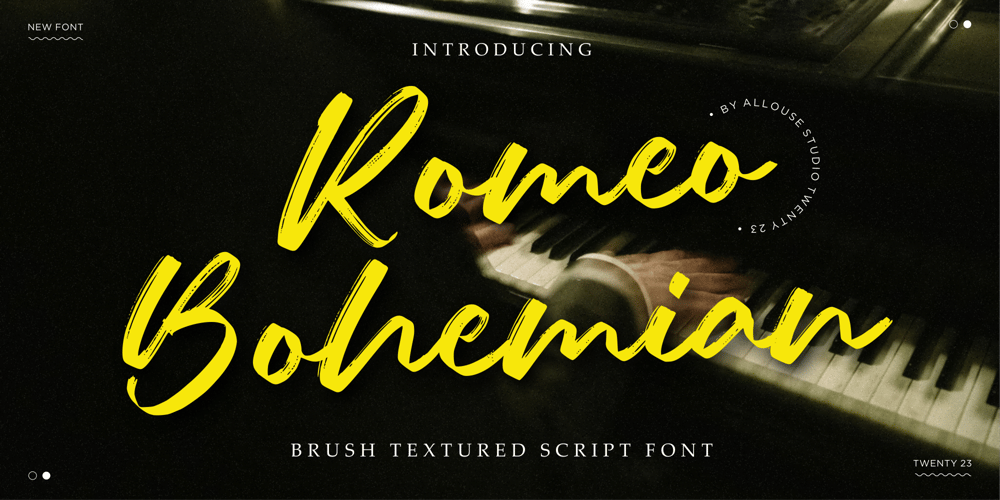
Romeo Bohemian Font Family was designed by Fachrizal Yusuf and published by Allouse Studio. Romeo Bohemian contains 1 styles and family package options. Proudly Presenting, Romeo Bohemian A Brush Script Font.Romeo Bohemian is perfect for any titles, logo, product packaging, branding project, megazine, social media, wedding, or just used to express words above the background.Romeo Bohemian also come with Multi-Lingual Support.Enjoy the font, feel free to comment or feedback, send me PM or email. Thank You!